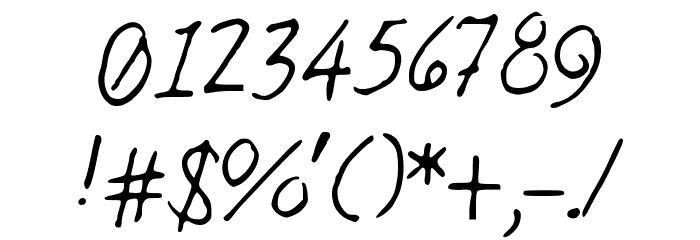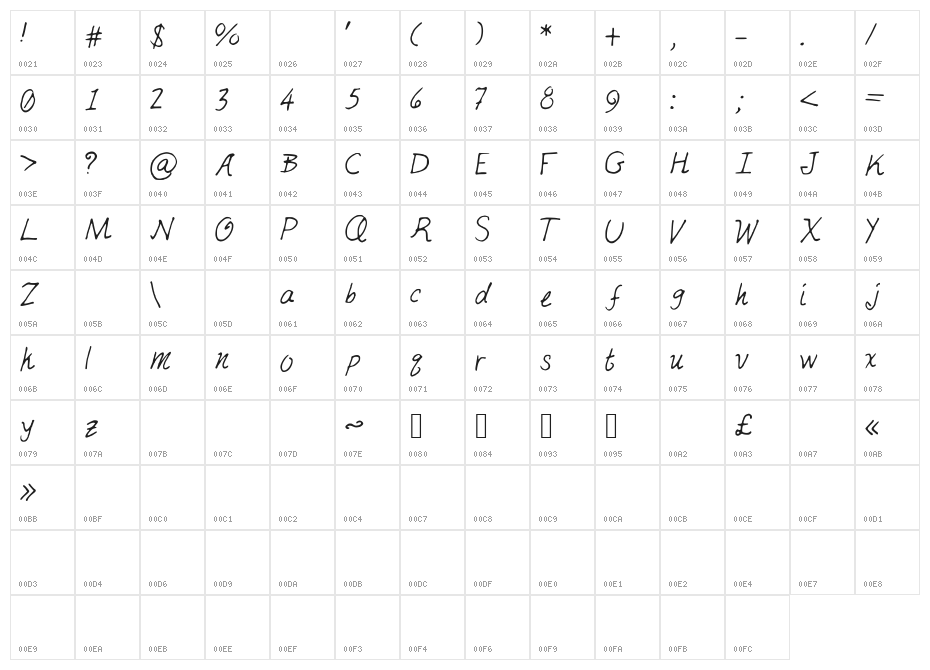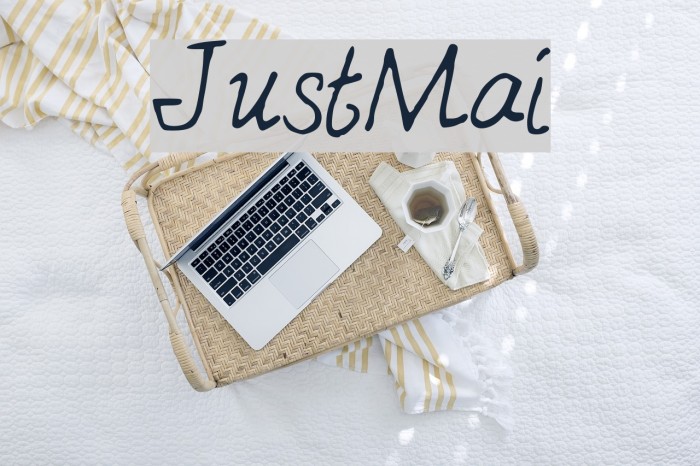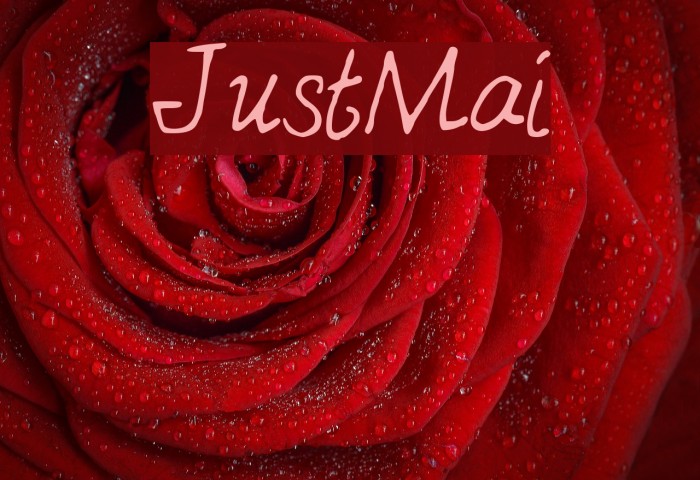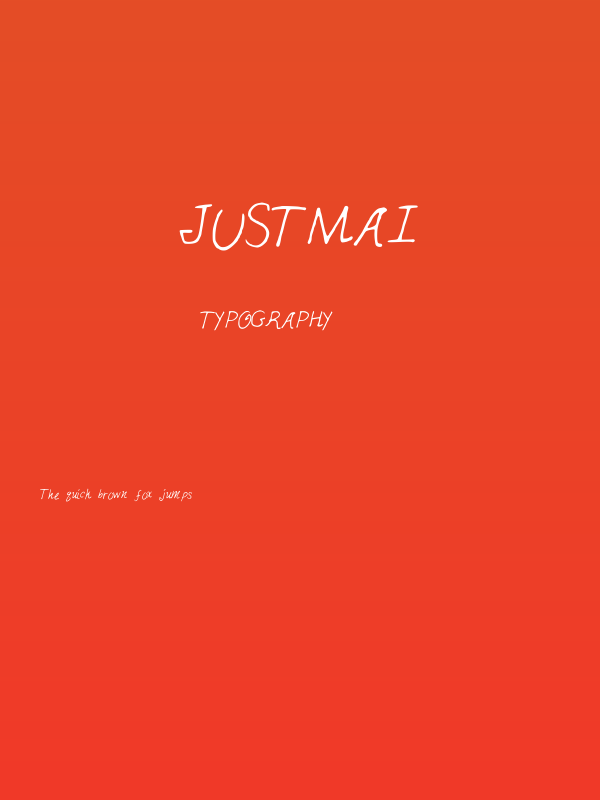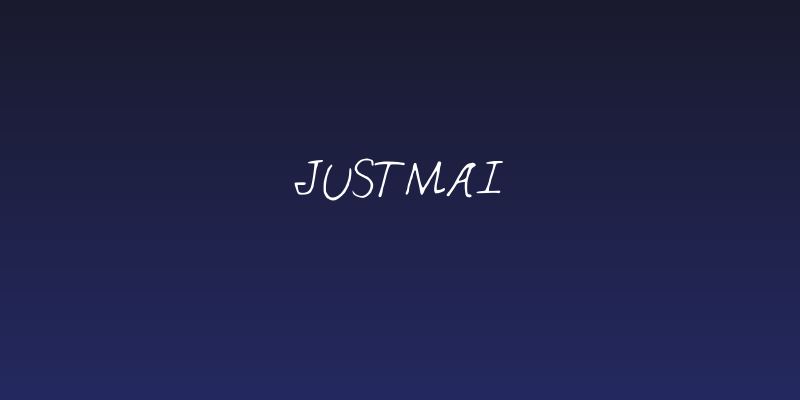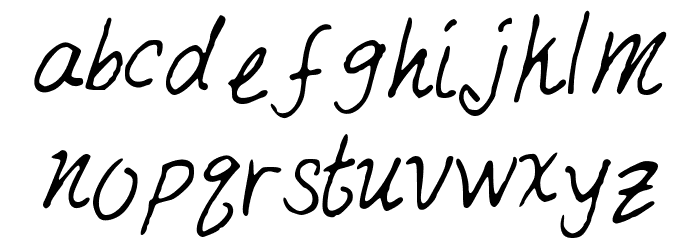
JustMai Font
JustMai Description
This font features a dynamic and energetic handwritten style, characterized by its fluid and slightly irregular strokes. The uppercase letters are bold and expressive, with a slight slant that adds a sense of motion. The lowercase letters maintain a consistent flow, enhancing the handwritten feel. Numbers and special characters are crafted with the same lively touch, ensuring uniformity across the character set. The overall appearance is informal yet stylish, making it suitable for creative and personal projects.
Mai Xiong
| Overall Style | Casual and Creative |
| Use Case | Logos, Invitations, Personal Projects |
| Proposed Projects | Ideal for greeting cards, personal branding, creative invitations, and informal posters. |